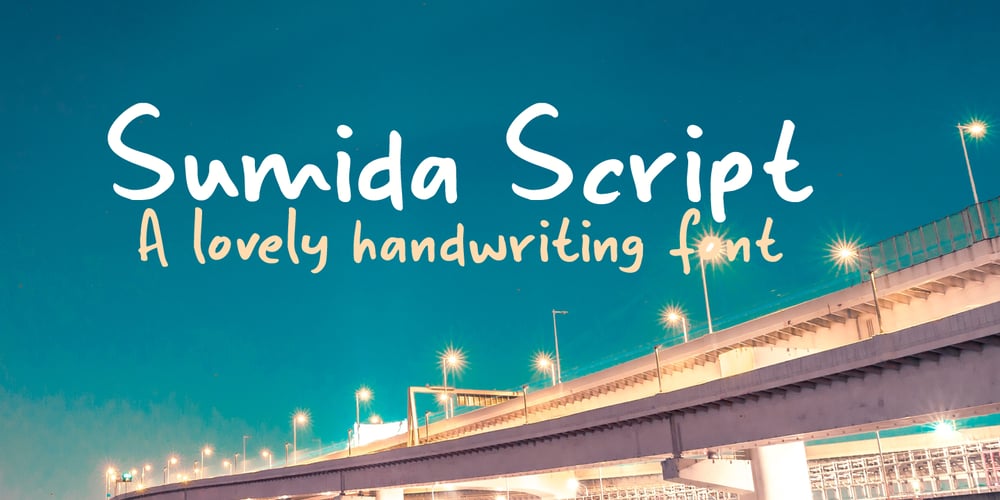
Sumida Script Font Family was designed by David Kerkhoff and published by Hanoded. Sumida Script contains 2 styles and family package options. Sumida is a special ward in Tokyo AND the river running through the city. Sumida script is a nice, handwritten font, which was made using a sharpie pen. Sumida Script comes with double letter ligatures and an extensive language support.